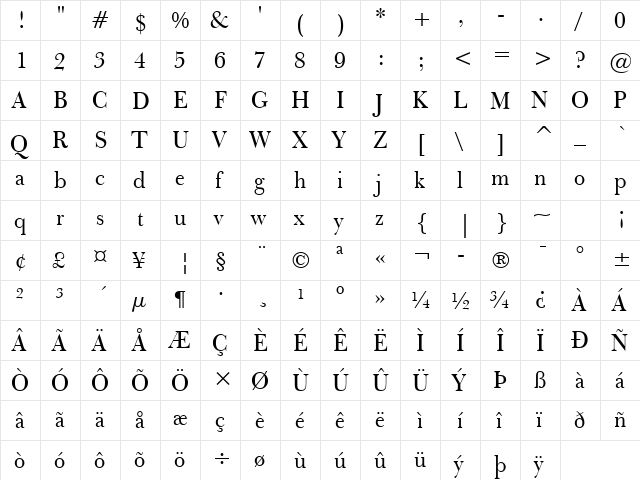
Bulmer Roman
Design Context for Bulmer Typeface
Bulmer offers clean, dependable letterforms without strong stylistic allegiance, making it a practical choice for designers who need flexibility.
Pro Tip: Pair Bulmer with a font of contrasting weight or personality to build a more expressive typographic hierarchy.